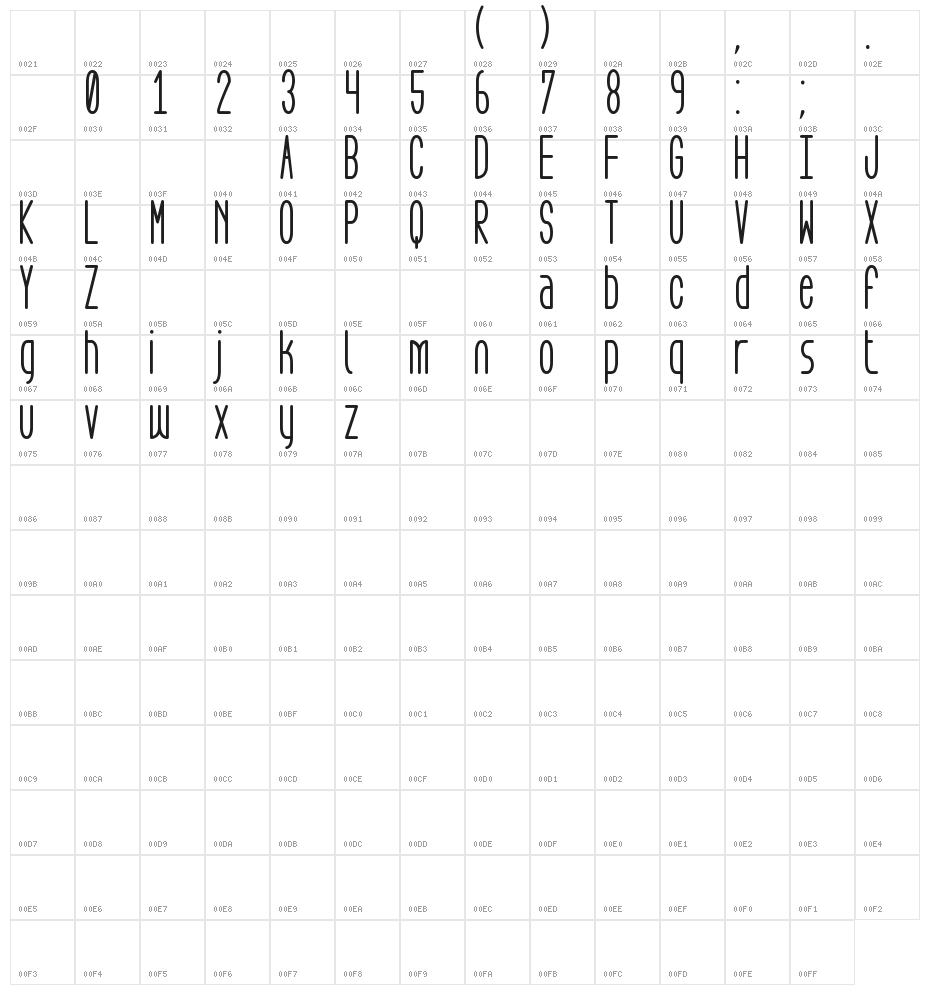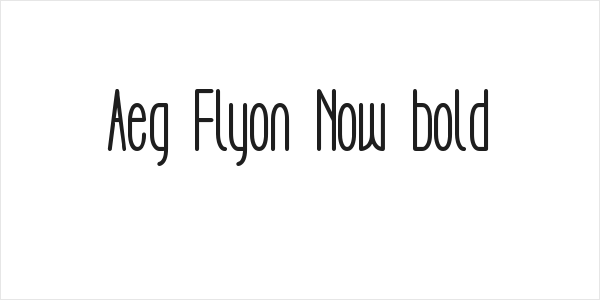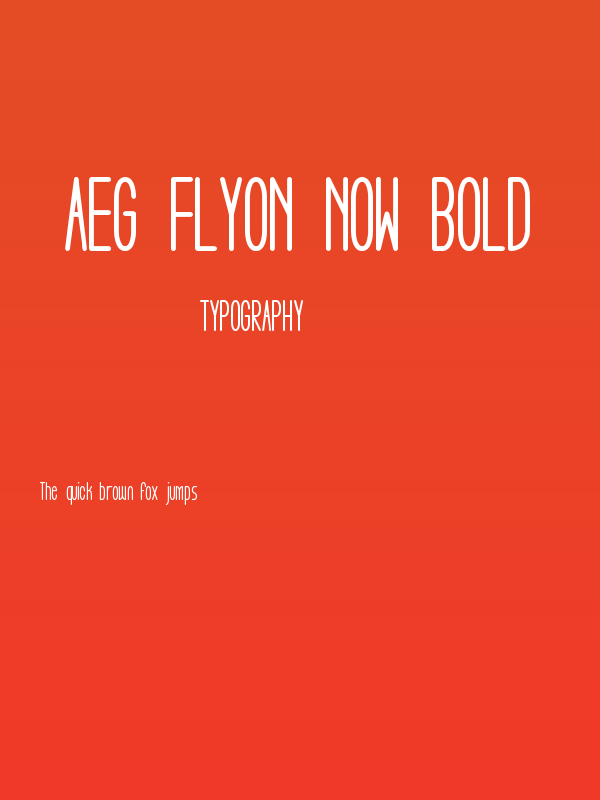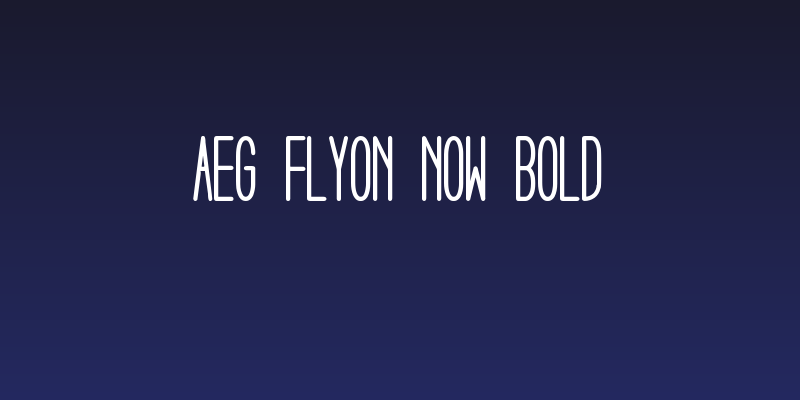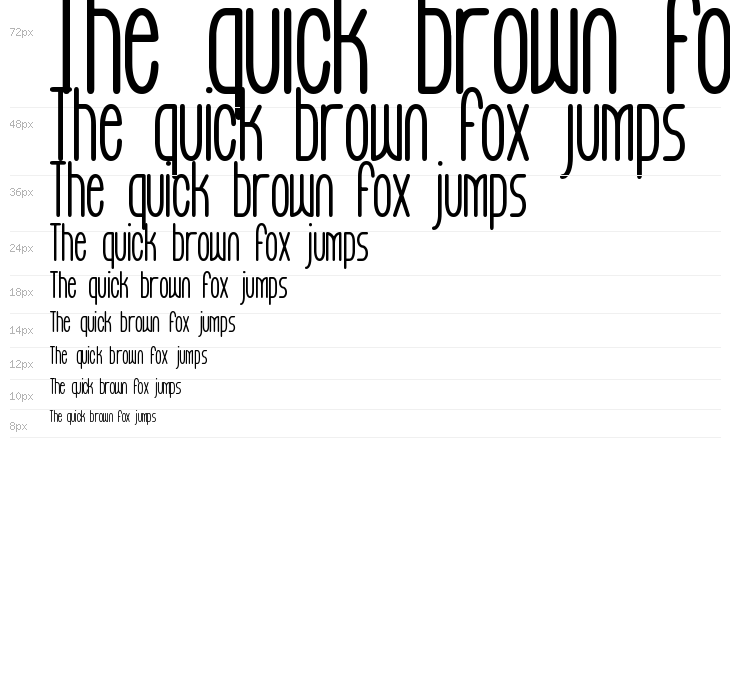
Aeg Flyon Now bold Font
Aeg Flyon Now bold Description
This font features a bold and modern design with a unique blend of geometric and organic shapes. The characters are tall and narrow, giving it a condensed appearance. The strokes are consistent in thickness, providing a uniform look across all letters and numbers. The uppercase letters are particularly striking with their elongated forms, while the lowercase letters maintain a similar style, ensuring readability. The numerals are clear and distinct, matching the overall aesthetic. Special characters are included, maintaining the same design ethos. This font is ideal for making a strong visual impact.
Proposed ProjectsIdeal for branding, advertising, and editorial design where a strong, modern aesthetic is desired.